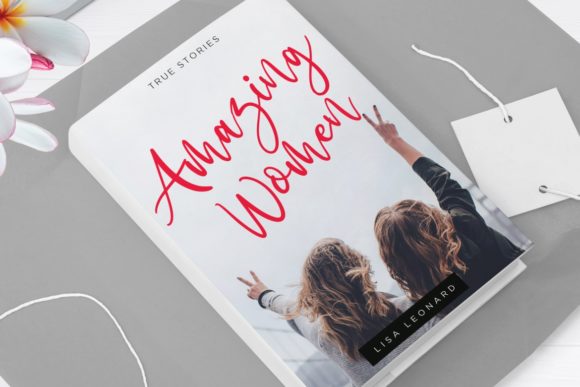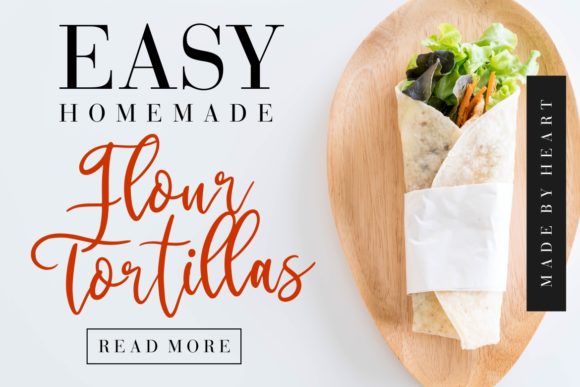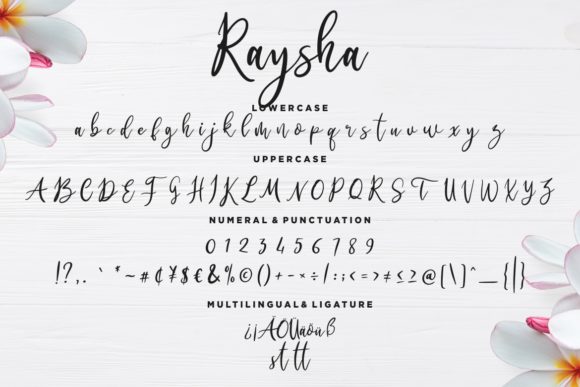
Introduction to Raysha Font
Have you ever found yourself sitting at your desk, surrounded by scraps of paper and half-finished ideas, searching for the perfect font to bring your creative project to life? It’s a feeling we’ve all been there – the excitement of starting something new, combined with the frustration of not quite finding the right fit. That’s where the Raysha Font comes in, a timeless and elegant handwritten font that’s sure to elevate any design.
Whether you’re working on a wedding invitation, a thank you card, or a quote that needs a little extra flair, the Raysha Font is the perfect addition to your design resource. Its high-quality design and transparent background make it easy to work with, and the best part? It’s available for free download, making it an accessible and valuable tool for designers of all levels.
With its versatility and beautiful, handwritten touch, the Raysha Font is a must-have for any designer looking to add a little extra magic to their work. So why not give it a try and see how it can transform your next creative project?
Key Features of Raysha Font
- High-quality design with a unique and creative style, ideal for various projects.
- Transparent background, allowing for easy integration into various design environments.
- Includes a range of sizes, from 16px to 72px, to cater to various design requirements.
- Designed with high resolution, making it suitable for use in print and digital media.
- Perfect for designers looking for a free and versatile design resource for their creative projects.
Honest Review: Raysha Font
I recently had the chance to work with the Raysha Font, and I must say it’s a great addition to any designer’s toolkit. This font is perfect for creative projects that require a touch of elegance and sophistication. With a free download option, it’s easily accessible to anyone looking to elevate their design.
One of the standout features of the Raysha Font is its transparent background, which makes it a breeze to use in any design. The font itself is also incredibly versatile, making it suitable for a wide range of design projects, from branding to digital graphics.
- ✨ Elegant and sophisticated design
- ✨ Versatile and easy to use
- ✨ High-quality design resource
- ⚠️ Limited font styles and variations
- ⚠️ May not be suitable for extremely bold or playful designs
Overall, the Raysha Font is a great design resource that can add a touch of class to any project. While it may have some limitations, its versatility and high quality make it a worthwhile addition to any designer’s toolkit.
When using the Raysha Font, consider the following tips: Use a transparent background to create a sleek and modern design. Experiment with different font sizes and colors to achieve the desired effect. Combine the Raysha Font with other design elements to create a high-quality design.
The Raysha Font is ideal for various design projects, including social media graphics, business cards, and presentations. Its unique style makes it perfect for creative projects that require a touch of elegance and sophistication.
Yes, the Raysha Font is a high-quality design resource, carefully crafted to provide a unique and visually appealing look for your design projects. Its clean and modern design makes it an excellent choice for a wide range of creative applications, from digital design to print materials.